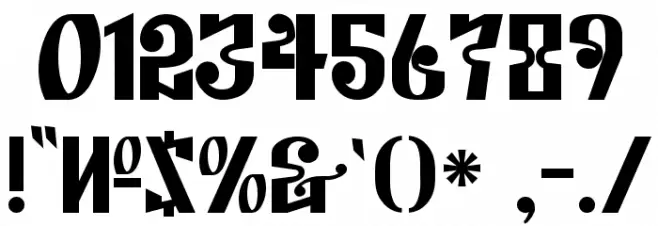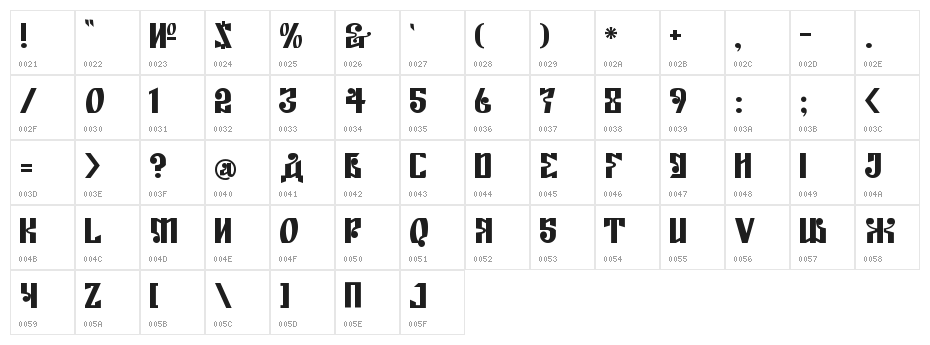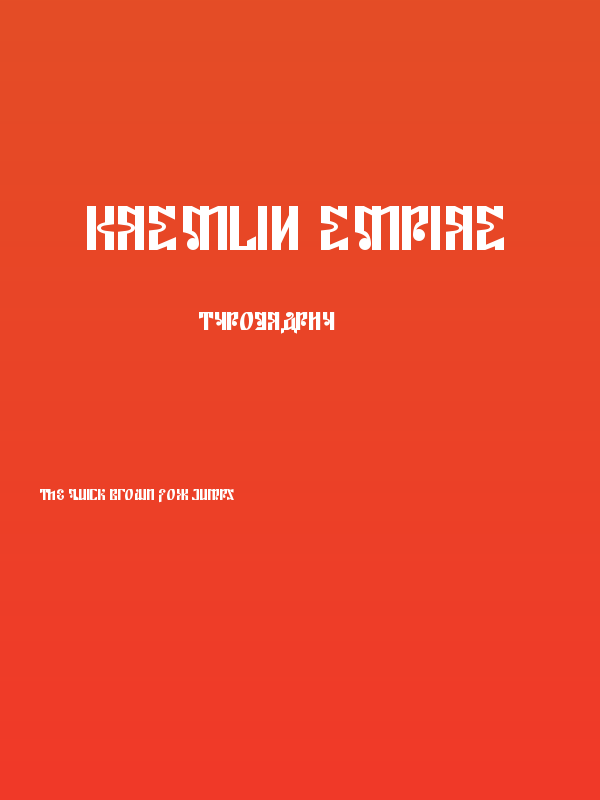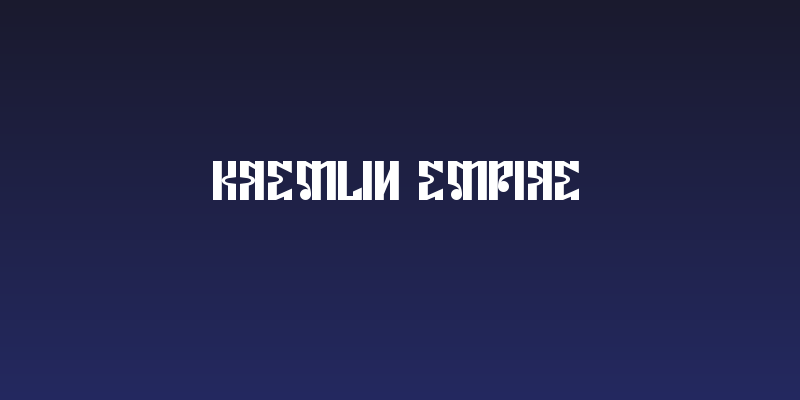
Kremlin Empire Font
Kremlin Empire Description
This font features a bold and striking design with a strong geometric influence. The characters are constructed with sharp angles and bold lines, creating a sense of strength and authority. The uppercase letters are particularly distinctive, with unique cutouts and shapes that give the font a modern, avant-garde feel. The lowercase letters maintain this bold style, ensuring consistency throughout the typeface. Numbers and special characters are equally bold, with a design that complements the overall aesthetic. This font is ideal for projects that require a strong visual impact.